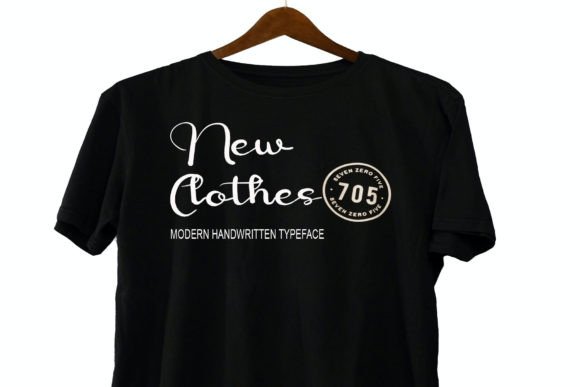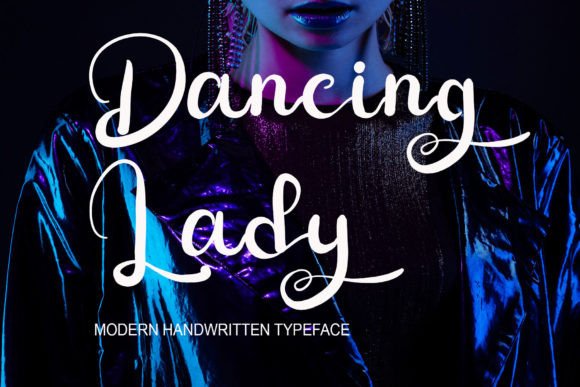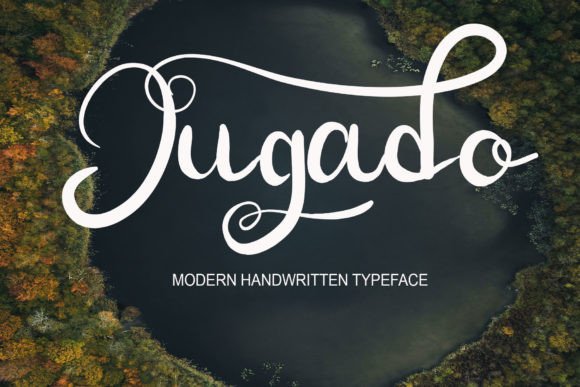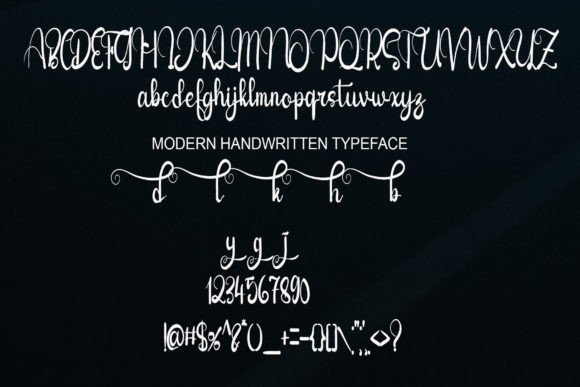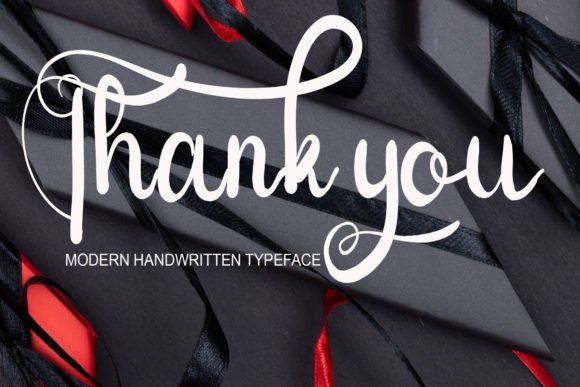
HomeScript FontsGajah Font Script Fonts Gajah Font FacebookTwitterPinterestWhatsApp 1 of 6 Gajah Font Poster 2... Gajah Font Poster 3... Gajah Font Poster 4... Gajah Font Poster 5... Gajah Font Poster 6... About Gajah Font Gajah is a fun and quirky handwritten font. Add it to your crafty ideas and enjoy the results! DOWNLOAD NOW People also explored Hister Bunga Font Winter Signature Font Rikani Font Valentines Simple Mandala Arthur Taniya Font Steaming Noodles Galivar Font Sammalado Font 192 0 TagsGajah Font Previous articleAnjassnda FontNext articleQarganeh Font LEAVE A REPLY Cancel reply Comment: Please enter your comment! Name:* Please enter your name here Email:* You have entered an incorrect email address! Please enter your email address here Website: Save my name, email, and website in this browser for the next time I comment. Personal Use Free Aragon Personal Use Free Read more about this font Allea Sweet Personal Use Free Read more about this font Rina Personal Use Free Read more about this font Dacquoise Personal Use Free Read more about this font BLOG Free Fonts Risk: Why Free Fonts Can Be Dangerous for Designers Free Fonts Risk: Why Free Fonts Can Be Dangerous for Designers Using free fonts is a common practice in web and graphic design. However, the... The 10 Best Handwriting Fonts to Add Personality to Your Designs Free vs Paid Fonts: Why Investing in Premium Fonts Is Worth It Elegant Wedding Invitation Fonts – Handwritten & Script Fonts